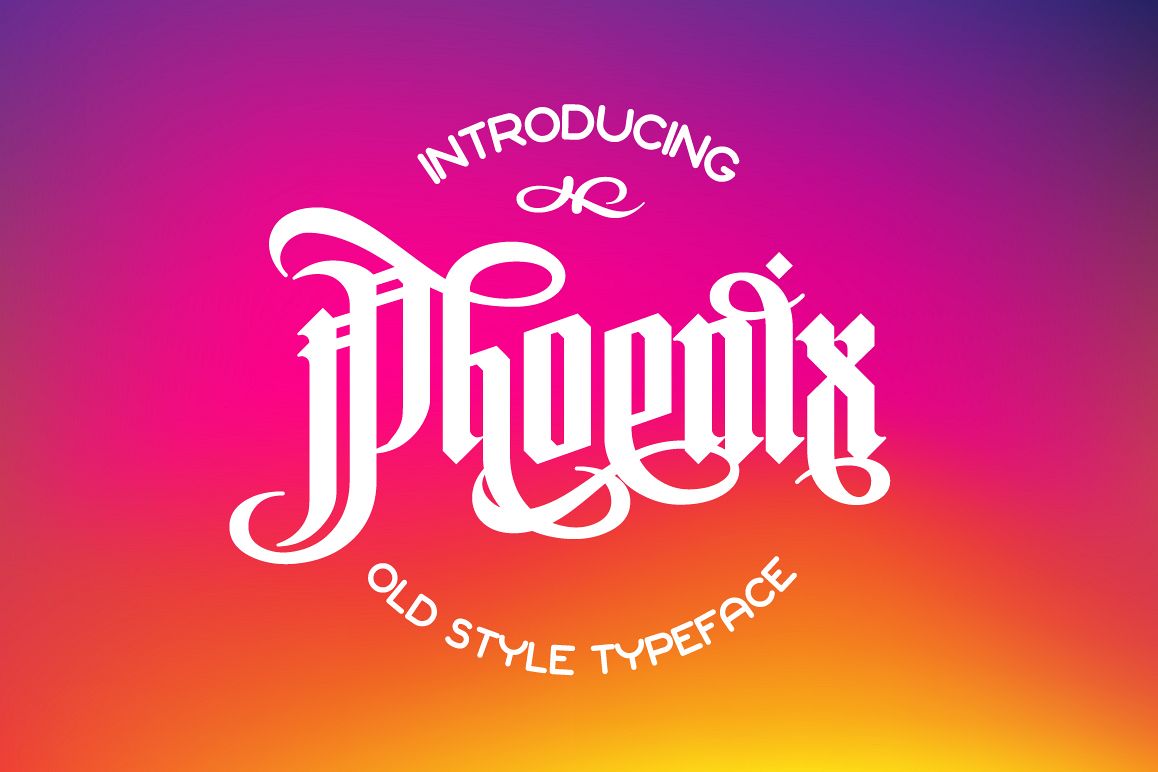
Phoenix
Hello friends, let me introduce my new Phoenix gothic typeface, is suitable for simple logo design, website header, wedding, invitations, fashion, menu designs and others. Good for vintage theme, tattoes etc.Main Files :